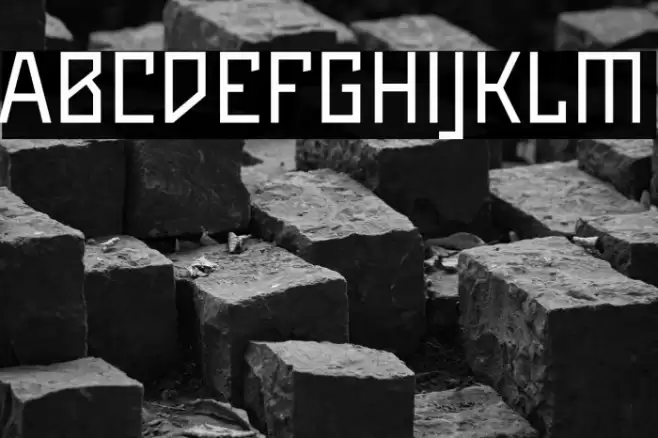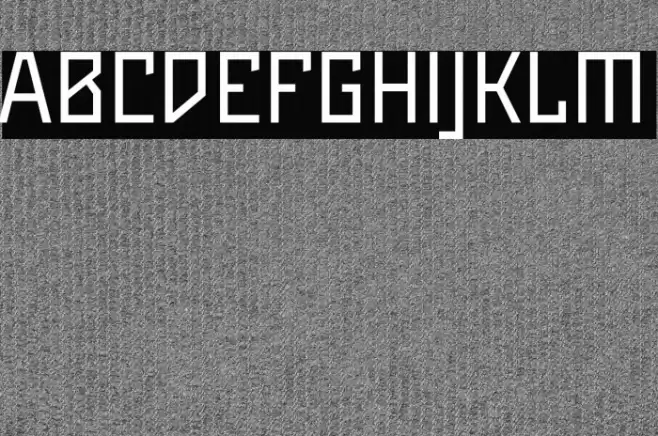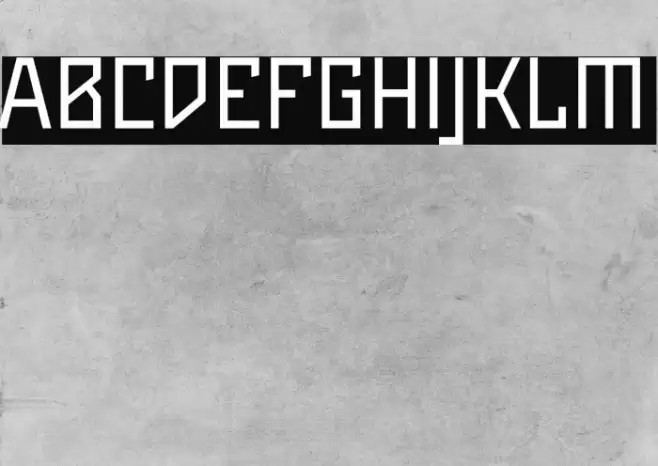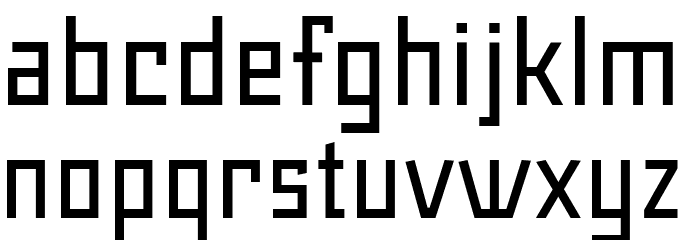
Maiers Neue Nr.8 Reduced Regular Font
Maiers Neue Nr.8 Reduced Regular Description
This font features a geometric and structured design, characterized by its sharp angles and straight lines. The uppercase letters exhibit a uniform height with a consistent width, giving a modern and technical appearance. The lowercase letters maintain the geometric style, with some characters like 'a' and 'g' having a unique, angular form. The numerals are clear and legible, matching the overall aesthetic. Special characters are designed to blend seamlessly with the alphanumeric characters, ensuring a cohesive look across all text. This font's precise and clean lines make it suitable for projects requiring a contemporary and professional feel.
A geometric and structured font with sharp angles and a modern appearance from Uncategorized fonts.
- Font: Maiers Neue Nr.8 Reduced Regular
- Proposed Projects: Ideal for technical documents, modern branding, digital interfaces, and architectural designs.
- Use Case: Headlines, Logos, Digital Interfaces